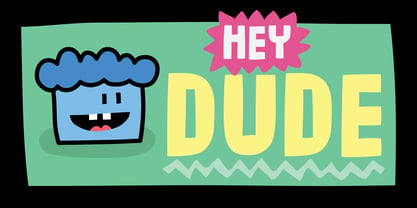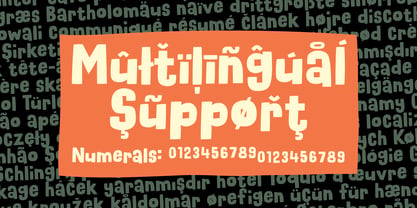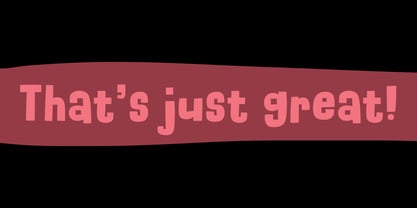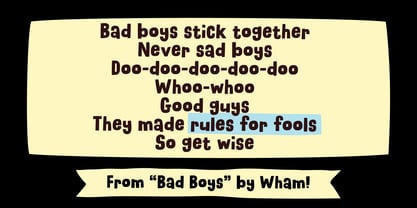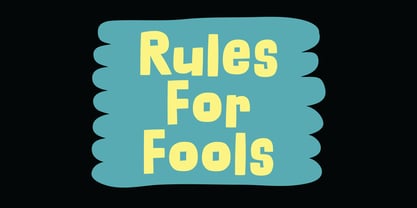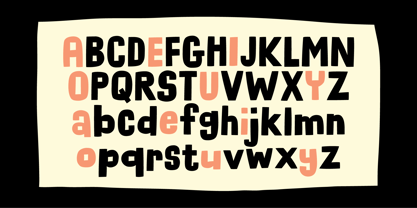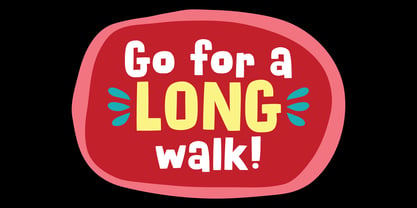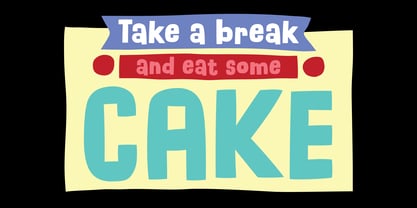
Rules For Fools
by Bogstav
The Rules For Fools Font Family was designed by Jakob Fischer and published by Bogstav. Rules For Fools contains 2 styles and family package options. More about this family
In 1983 Wham! released the album “Fantastic” - at that time I was around 13 and thought that the track “Bad boys” was awesome. And kind of cool as well! - looking back at this, makes me wonder why … but then I think, well, I was 13 and it obvious didn’t take much to impress me :) Now, 43 (!) years later, I have created this “Rules For Fools” (as George Michael sings in the track) It’s bold, cheeky, bouncy and it’s that kind of typeface works best where fun is required: like posters, headlines, packaging or anywhere else where text needs to party! :)
Designers: Jakob Fischer
Foundry: Bogstav